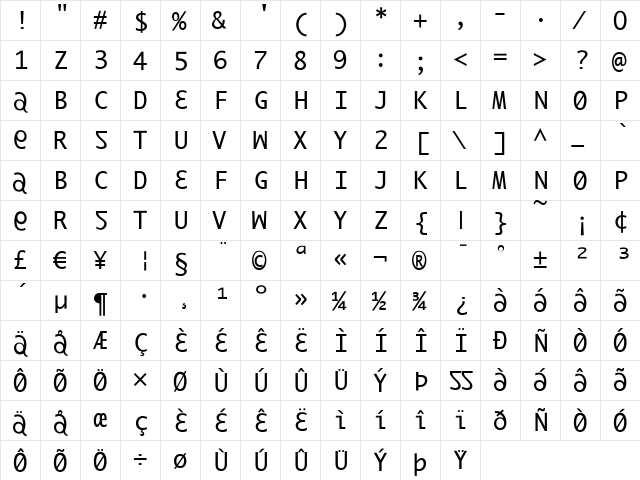
ILikeOffenbach Regular
Design Context for ILikeOffenbach Typeface
ILikeOffenbach offers clean, dependable letterforms without strong stylistic allegiance, making it a practical choice for designers who need flexibility.